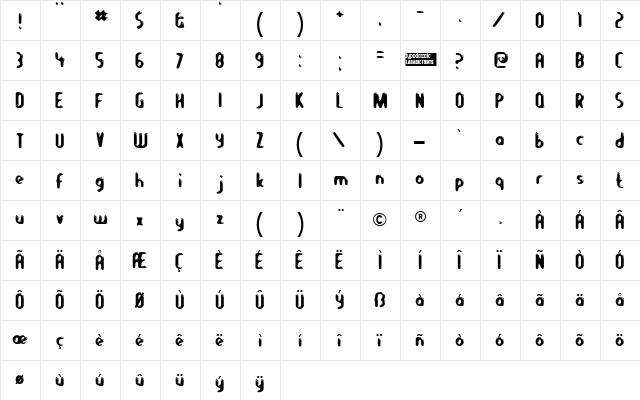
Let's Eat Regular
Let's Eat takes a measured approach to typography — its balanced proportions and neutral character make it a reliable workhorse for both digital and print work.